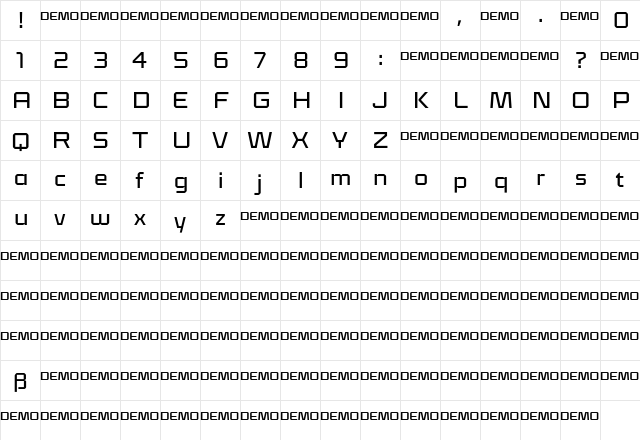
Klapt Medium
| Foundry | SevenType |
| Designer | Vitײia Neves |
Design Context for Klapt Typeface
Klapt offers clean, dependable letterforms without strong stylistic allegiance, making it a practical choice for designers who need flexibility.